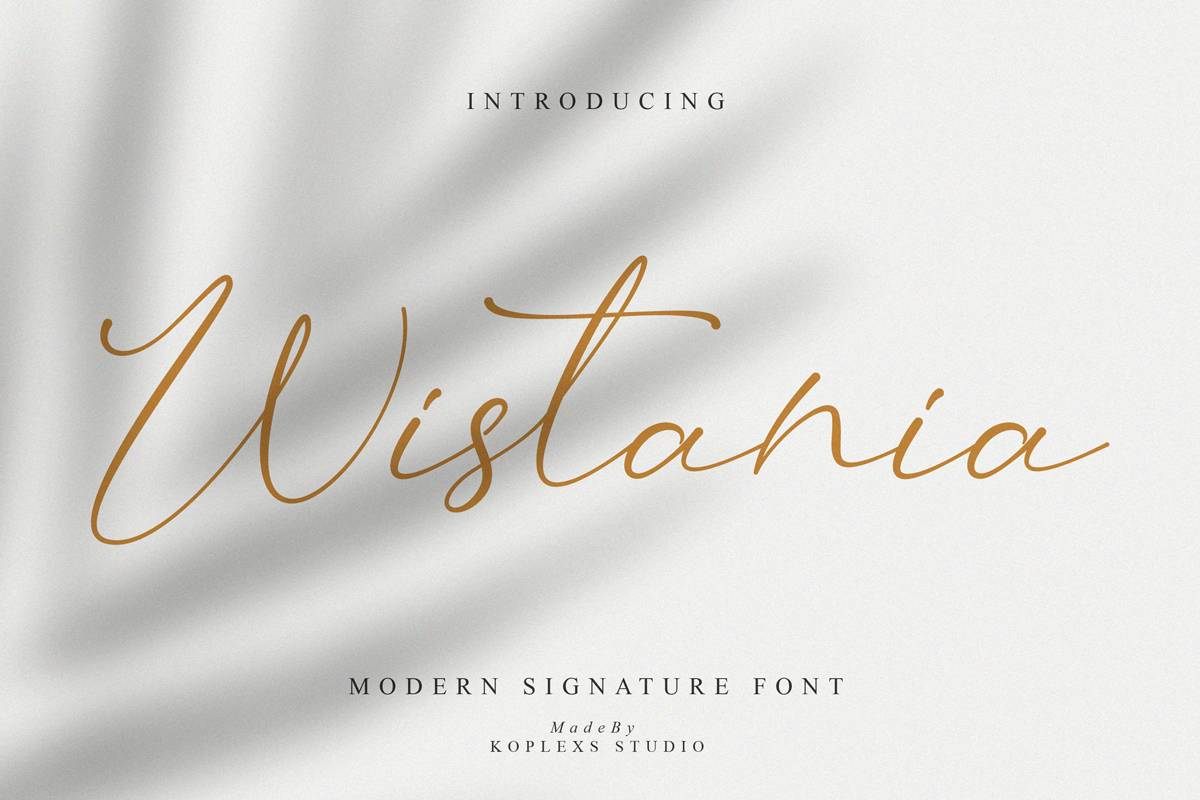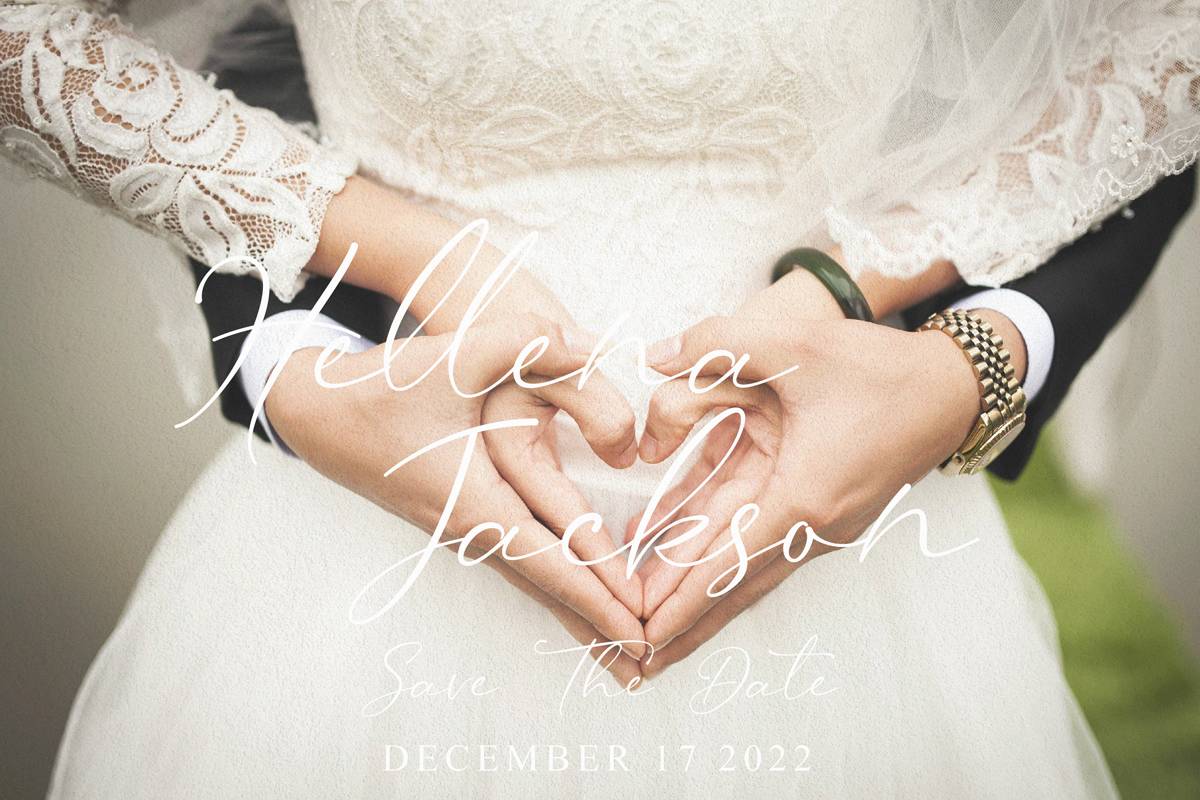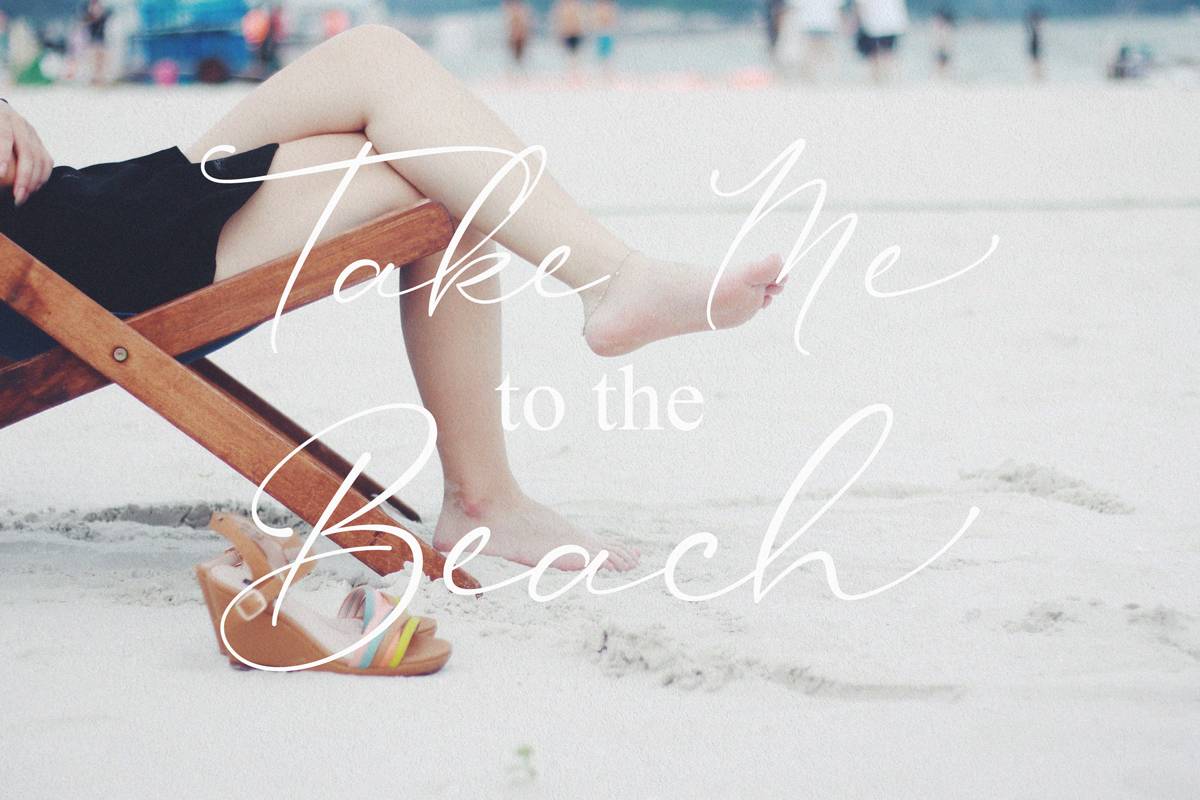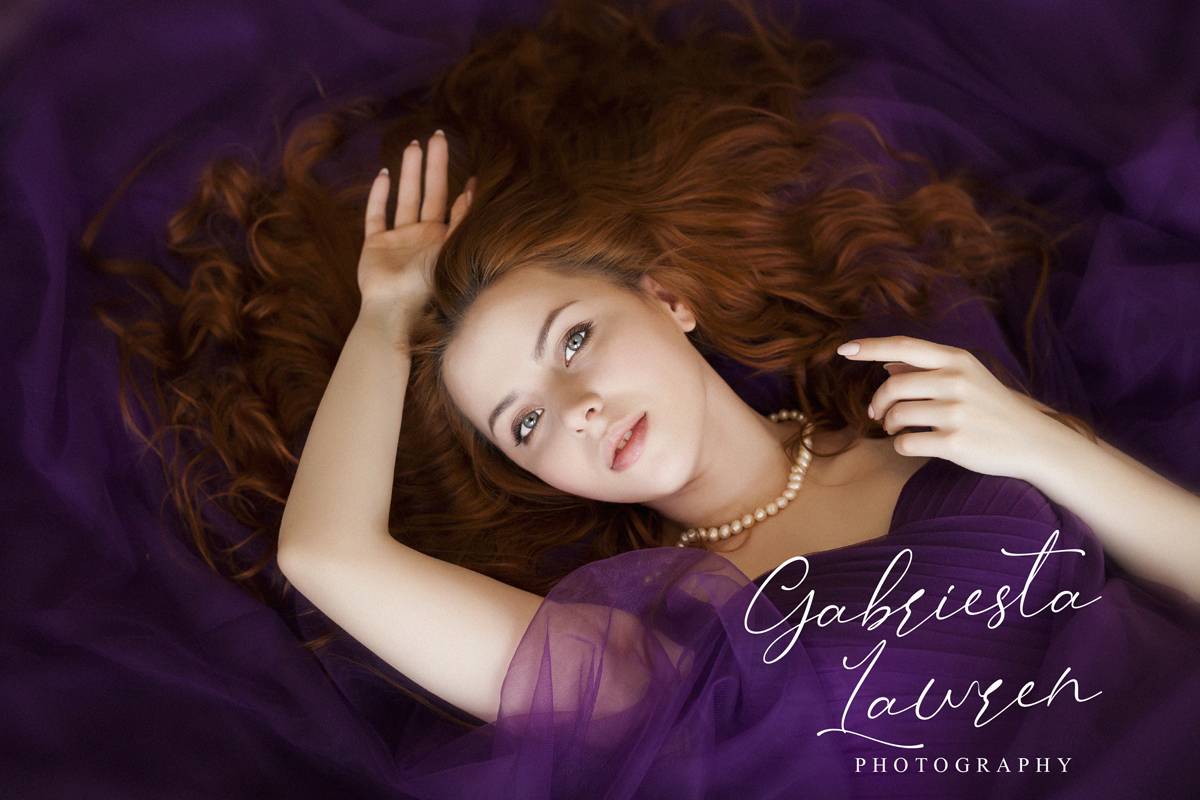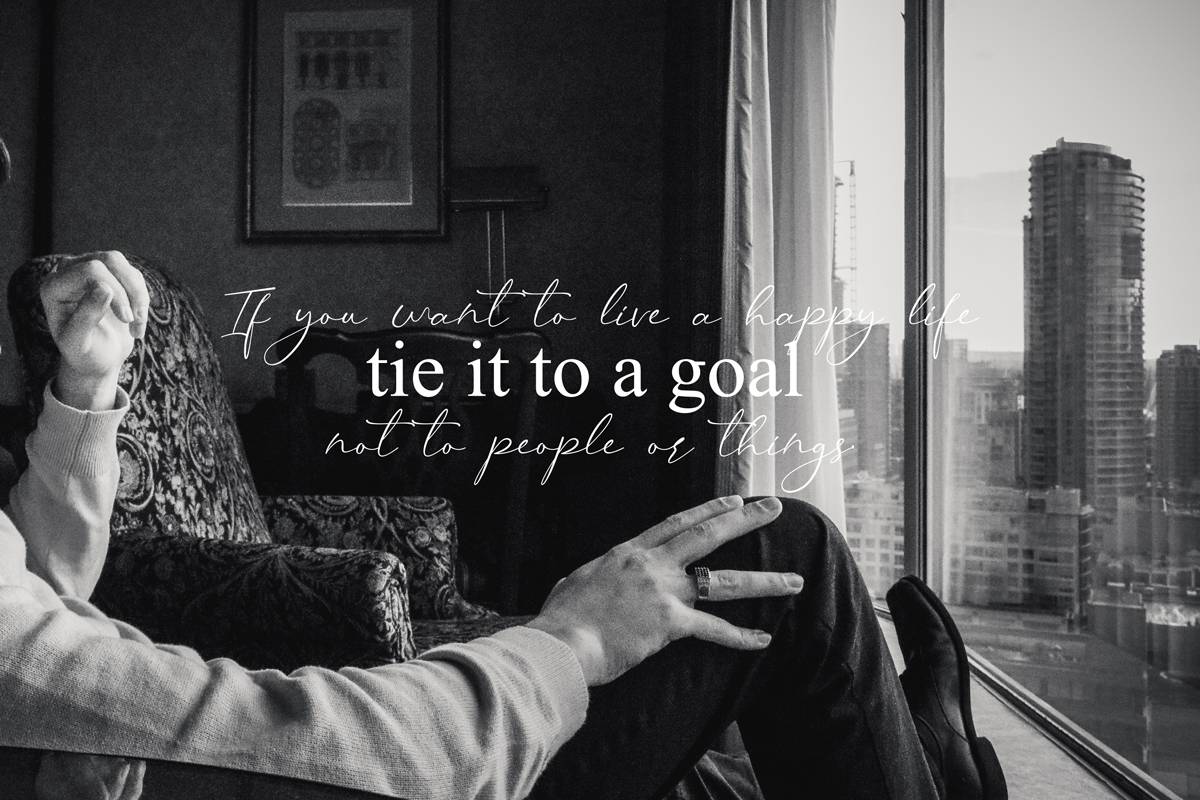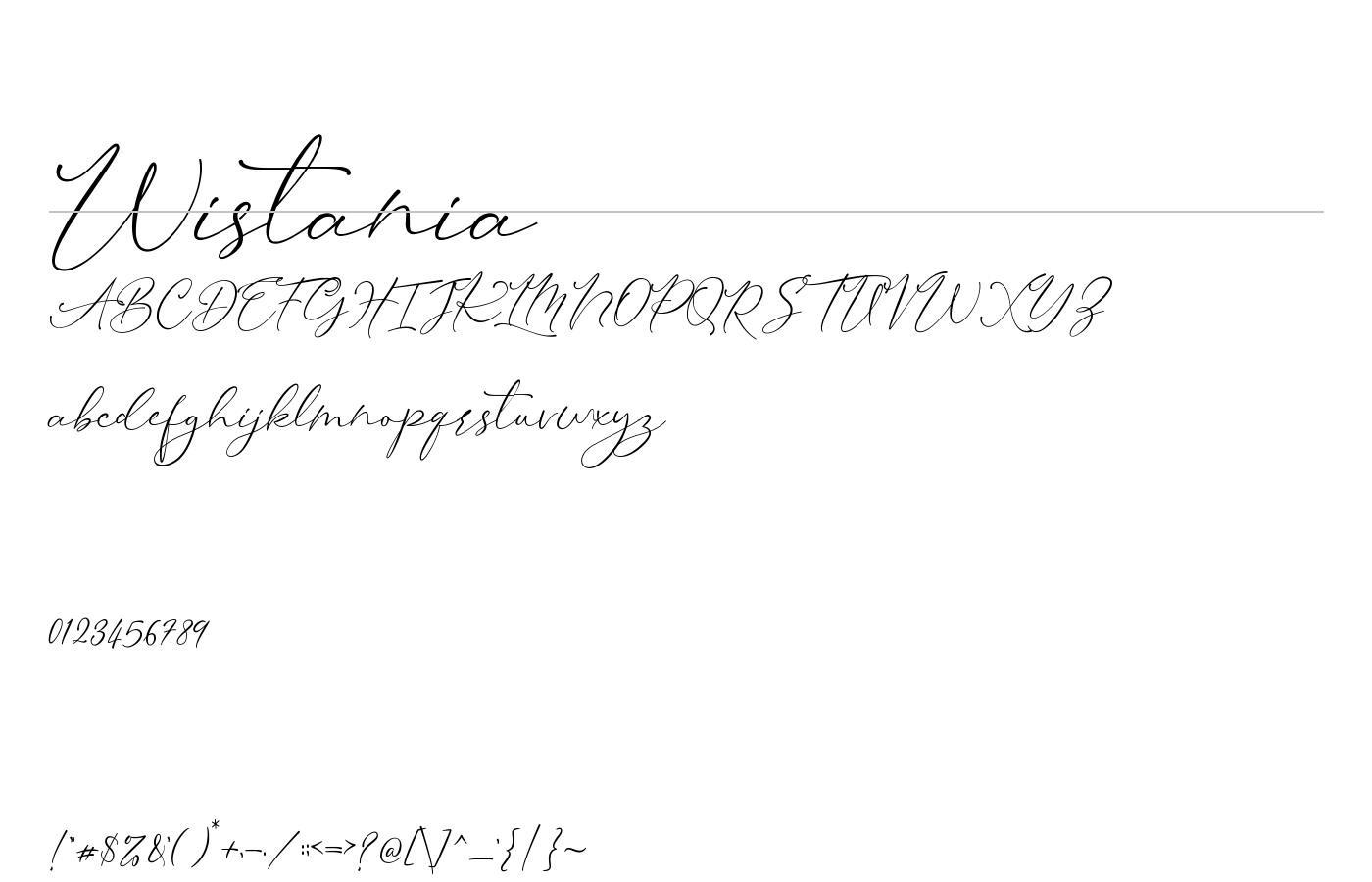
Wistania is an elegant and delicate script font characterized by its slender, flowing strokes and graceful letterforms. Its refined, handwritten style with subtle flourishes makes it perfect for romantic invitations, luxury branding, and sophisticated editorial use. This font’s airy and stylish appearance adds a personal, artistic touch to designs that seek a classy yet approachable feel.
Wistania Font
About Wistania Font
| Font family | Wistania Font |
| Designer | Ahmad Muslimin |